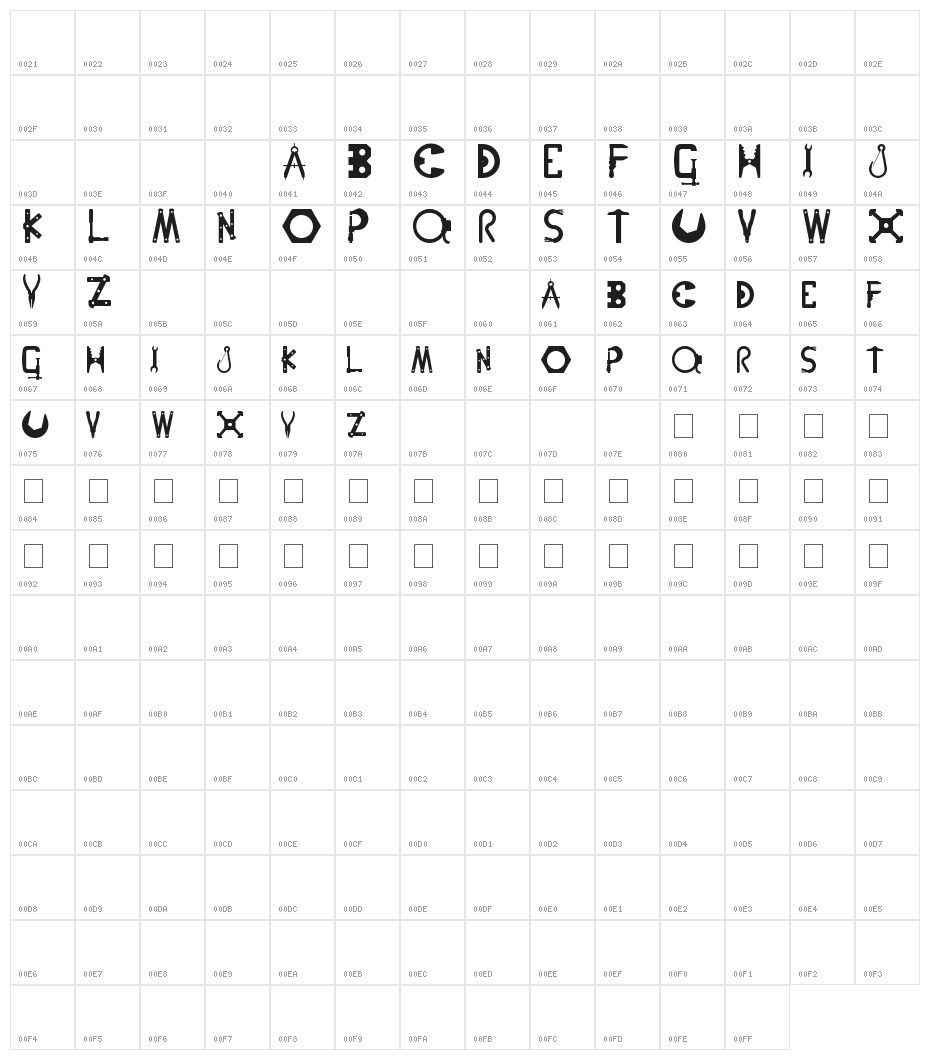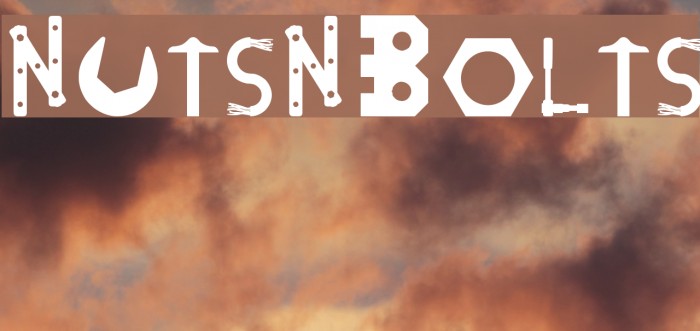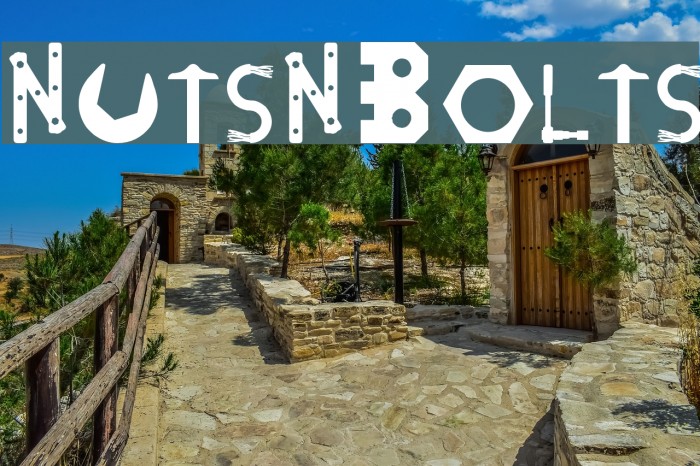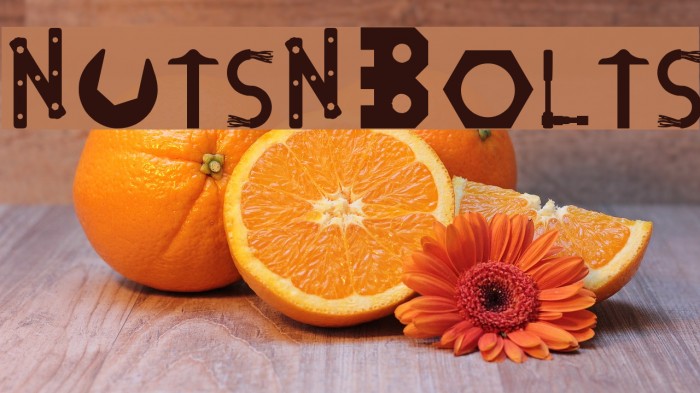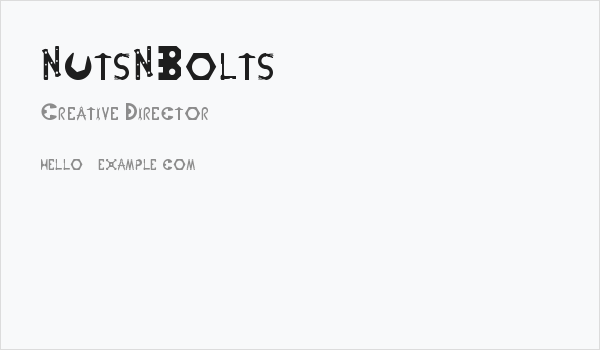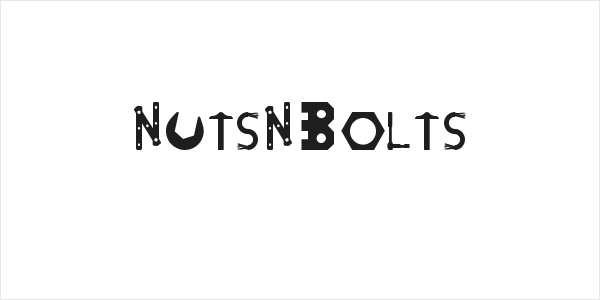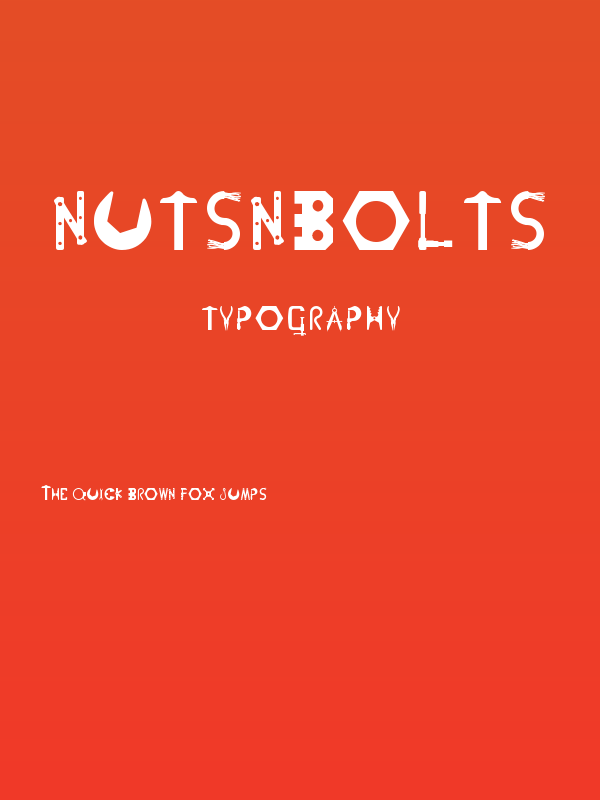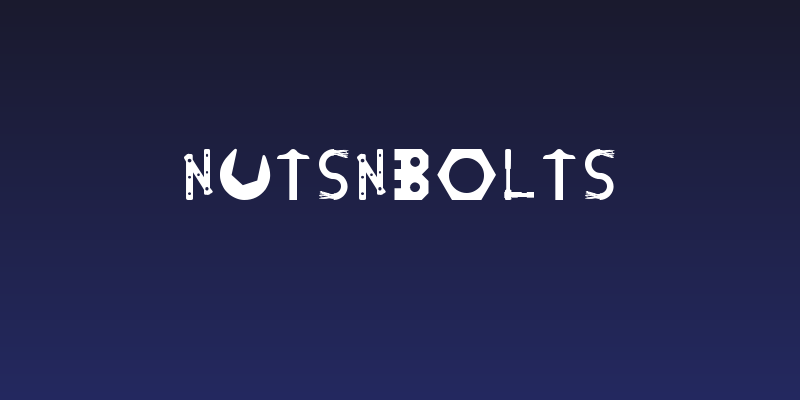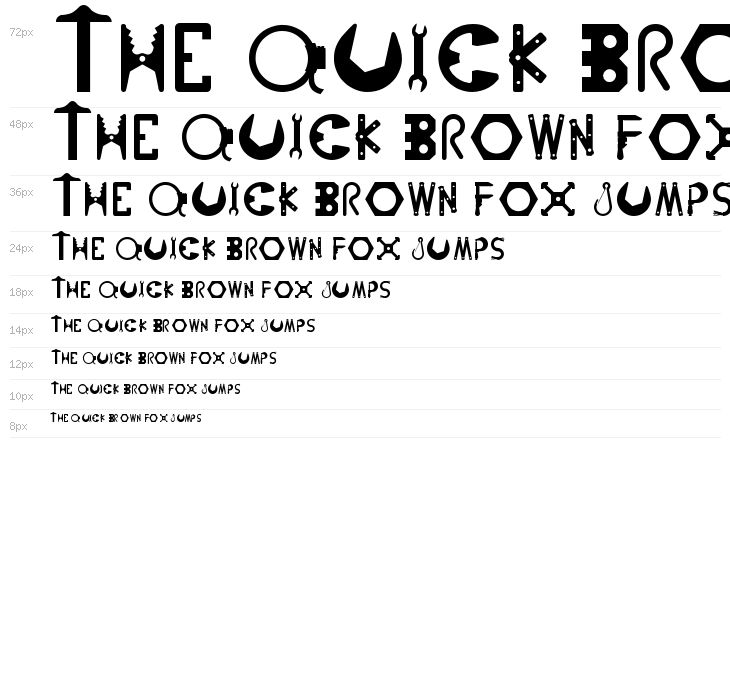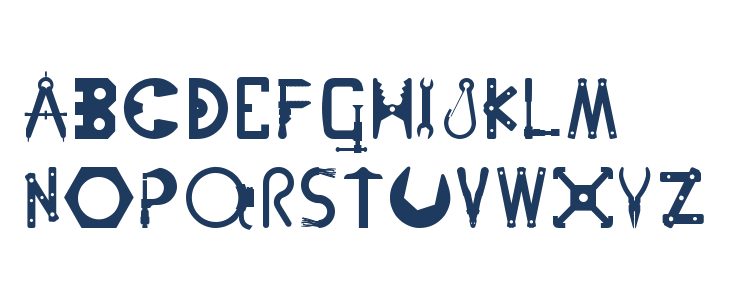
NutsNBolts Font
NutsNBolts Description
This font features a unique and creative design where each letter is crafted to resemble various tools and hardware elements, such as wrenches, bolts, and screws. The characters are bold and striking, with a playful yet industrial aesthetic. The uppercase letters are particularly detailed, showcasing intricate designs that mimic the appearance of mechanical components. This font is perfect for projects that require a rugged, mechanical feel, adding a distinctive touch to any design. The overall style is both decorative and thematic, making it ideal for specific niche applications.
| Overall Style | Decorative, Industrial |
| Use Case | Logos, Posters, Themed Events |
| Proposed Projects | Ideal for DIY project branding, tool shop logos, industrial-themed posters, and creative mechanical designs. |